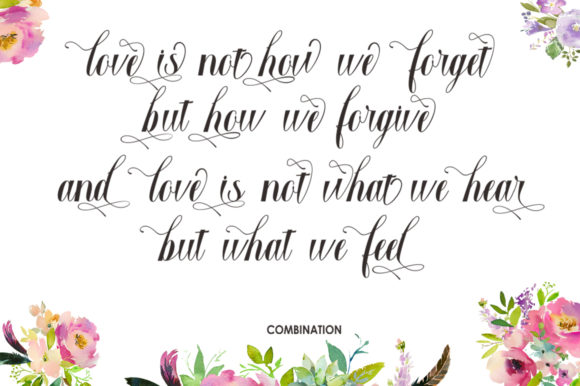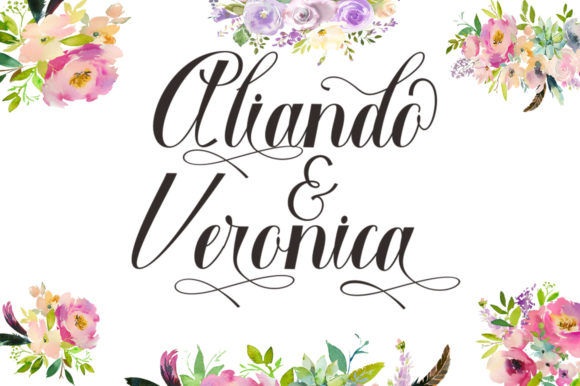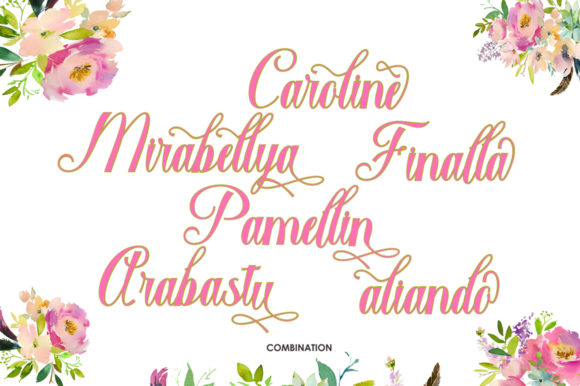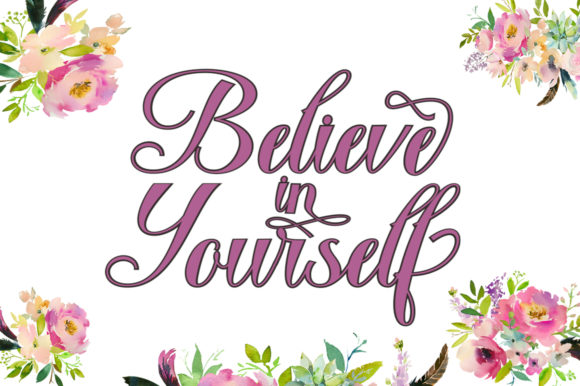
Introduction to Macrofhyllya Script Font
Have you ever been working on a design project, and that perfect font just slipped through your fingers? The elusive ‘wow’ factor that makes your creative project stand out from the crowd? Well, we’re excited to introduce you to the Macrofhyllya Script Font, a high-quality design resource that’s sure to elevate your next project.
Imagine the feeling of effortlessly crafting a watercolor design, or adding a touch of elegance to a blog header. The Macrofhyllya Script Font is the perfect companion for your creative endeavors, offering a unique, hand-drawn feel that’s sure to capture attention. With its irregular baseline and brush-written charm, this font is a must-have for designers looking to add a personal touch to their work.
Key Features of Macrofhyllya Script Font
- High-quality, elegant script font perfect for creative projects and design resources.
- Macrofhyllya Script Font is ideal for use in wedding invitations, quotes, and other creative applications where a beautiful, handwritten font is required.
- Unique characteristics include its flowing, cursive style and ornate flourishes, making it a standout choice for designers seeking a high-end look.
- Perfect for use in digital design projects, including social media graphics, logos, and branding materials, where a touch of elegance and sophistication is desired.
Honest Review: Macrofhyllya Script Font
I recently had the chance to work with the Macrofhyllya Script Font, and I must say it’s been a game-changer for my design projects. As a design resource, it’s a high-quality addition to any creative project. The font’s elegant script style is perfect for adding a touch of sophistication to invitations, certificates, and other formal documents.
Here are some things that work well: ✨ Unique design that stands out from the crowd ✨ Excellent for creative projects requiring a high-end feel ✨ Supports both Latin and Cyrillic languages
Overall, I’m thoroughly impressed with the Macrofhyllya Script Font. While it may not be perfect, its strengths far outweigh its limitations. If you’re looking for a high-quality design resource for your creative project, I highly recommend giving it a try. And the best part? It’s available for free download, making it an even more attractive option for designers on a budget.
- Excellent for creative projects